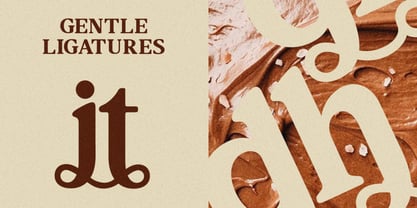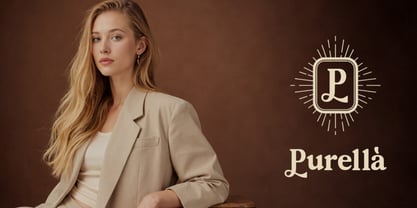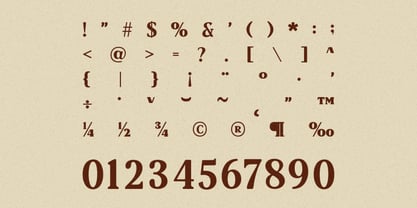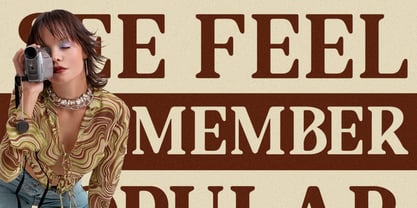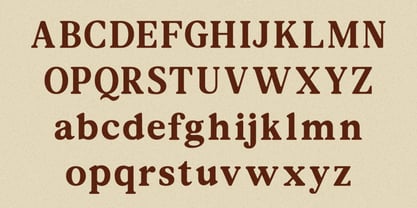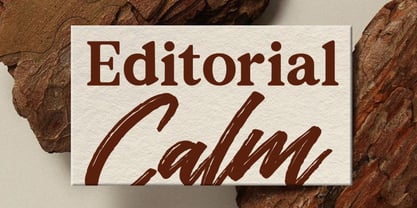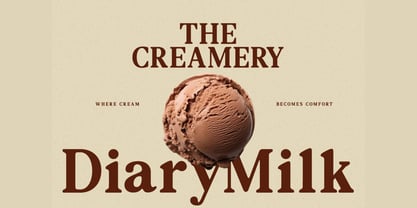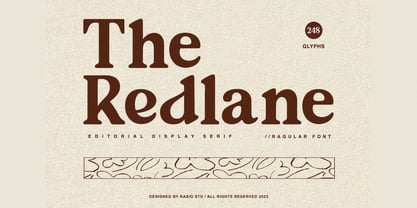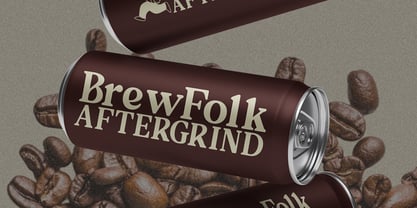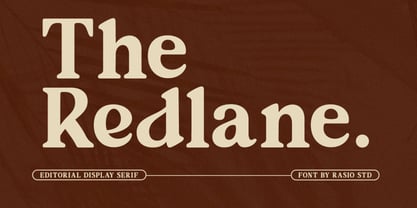
The Redlane
The Redlane is a refined editorial display serif typeface featuring 248 glyphs with rich stylistic character. Designed with elegant curves and classic proportions, this font is ideal for editorial layouts, book covers, branding, and other design projects that seek a blend of sophistication and personality. Perfect for editorial designers, art directors, and branding professionals, The Redlane adds a touch of vintage charm and literary elegance to any visual project. Use it on book covers, magazine headlines, product labels, or lifestyle branding to evoke calm, trust, and timeless appeal. Its strong presence and soft curves create a refined tone for both modern and classic applications in digital and print environments.